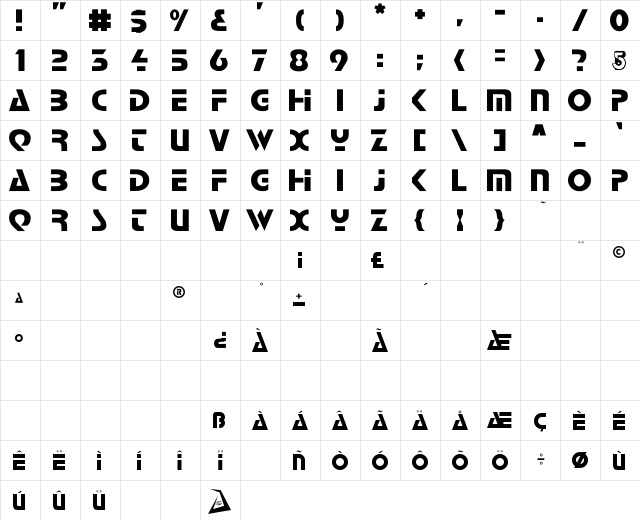
Babylon Industrial 2 Normal
| Foundry | Chuck Davis for Letterhead Fonts |
| Designer | Chuck Davis for Letterhead Fonts |
| Copyright | This font is based on the background font used in the television show Babylon 5. Pretty to look at, but kinda hard to read if you're trying to find the local escape pod entrance in a panic. :) |
Design Context for Babylon Industrial 2 Typeface
Babylon Industrial 2 is a composed and adaptable typeface that performs quietly and consistently across a wide range of design contexts.